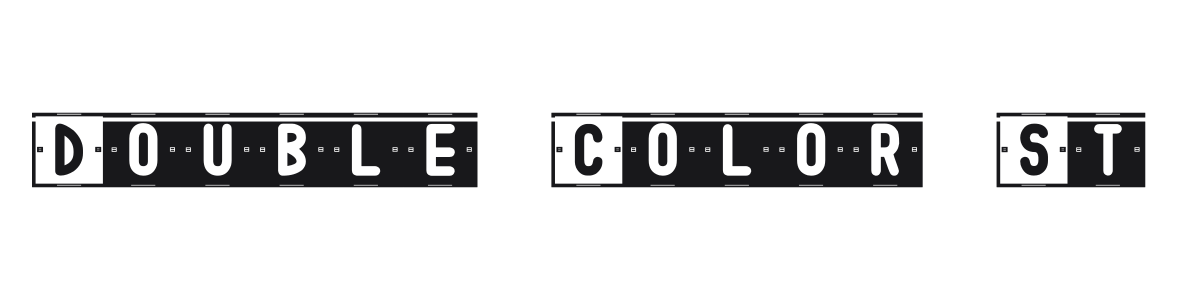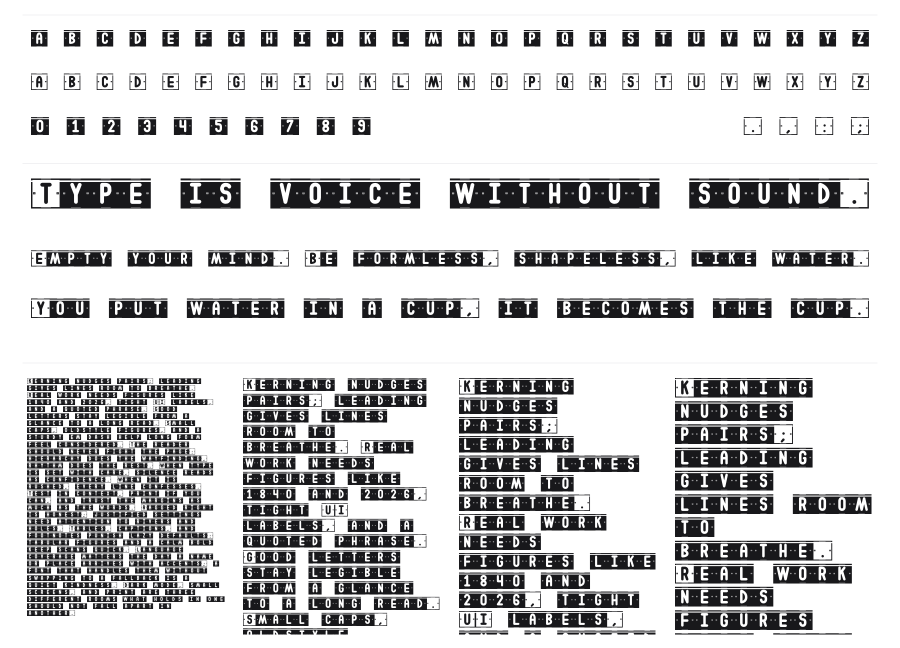
Double Color St
by Southype · Website
Double Color St is a bold geometric inline display font inspired by vintage cinema marquees and mid-century signage. Its double-layer construction pairs a heavy black outer form with a contrasting interior, creating instant depth without color. The ruled baseline and dot motifs push the theatrical, industrial aesthetic hard.